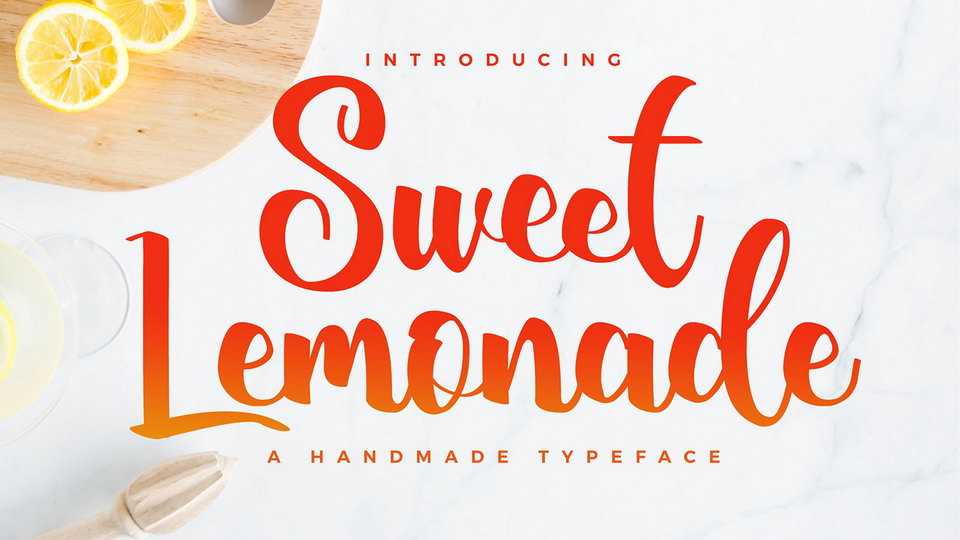
Download Sweet Lemonade font, a beautiful, smooth and delicious handwritten script that is perfect for many projects. It fits for food and drink project stuff, can be used for various purposes such as: logos, tshirt, magazines, cover albums, quotes, birthday quote and much more.
Designer: Damarletter